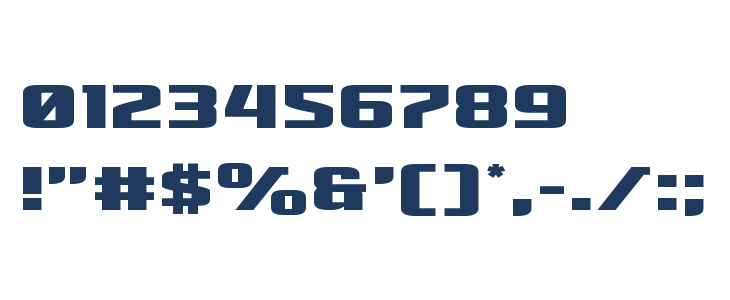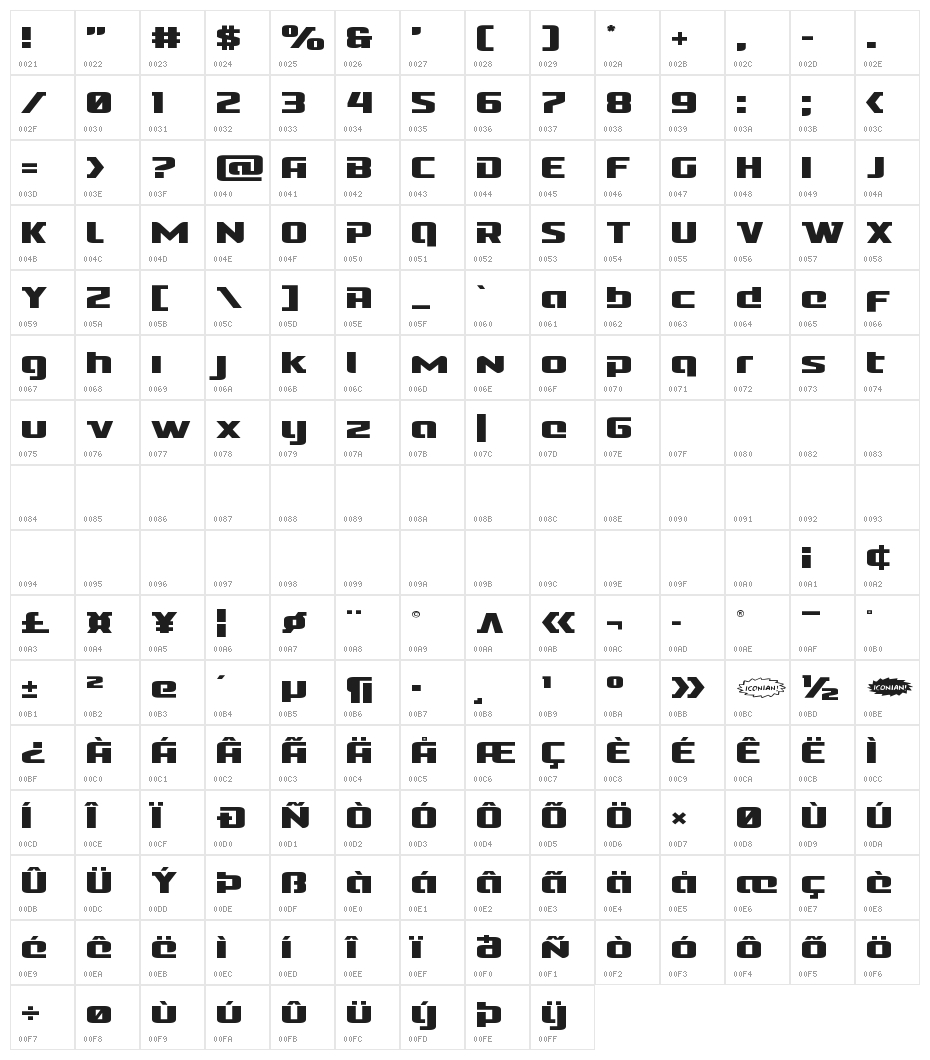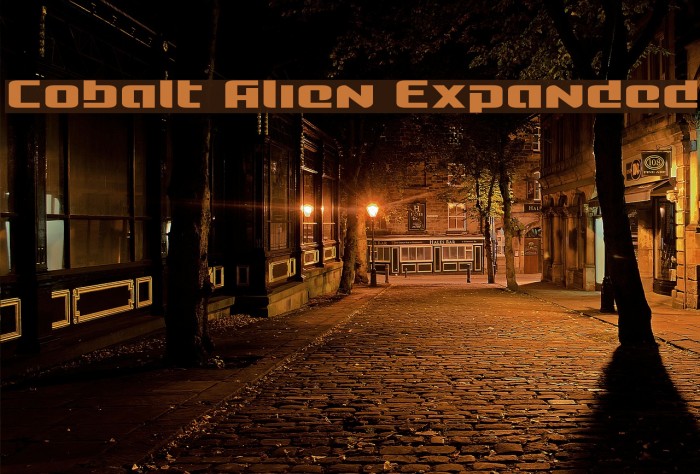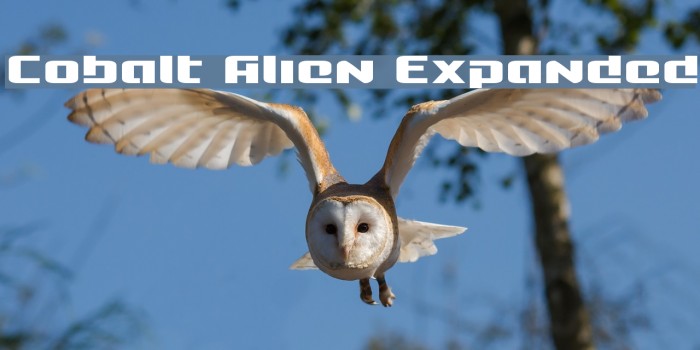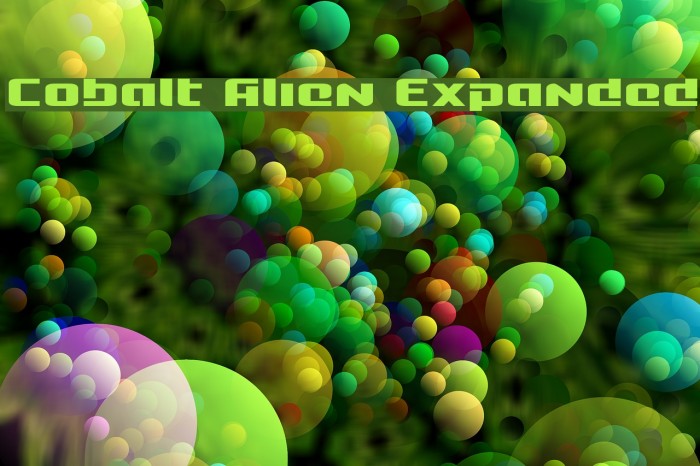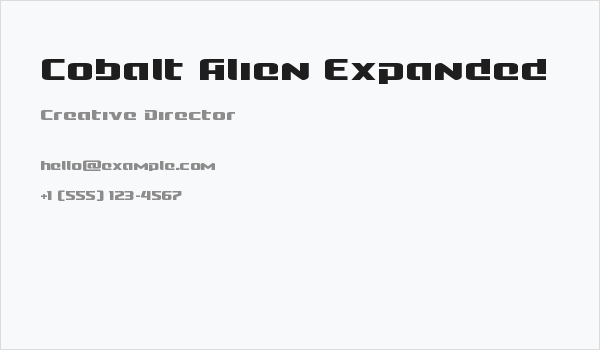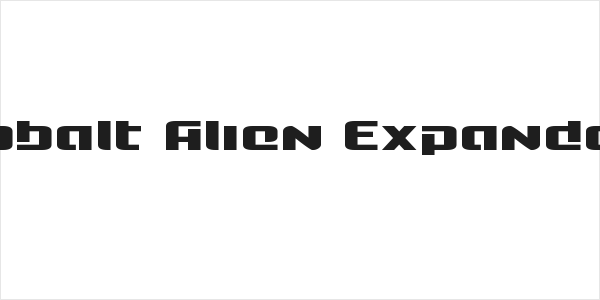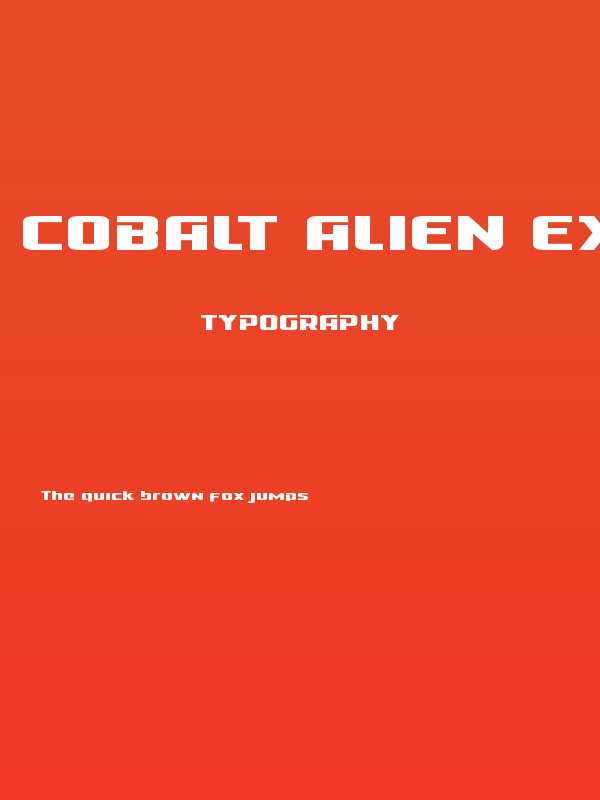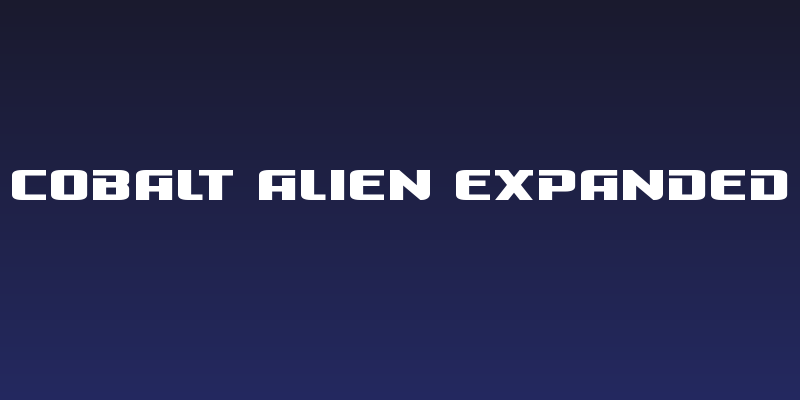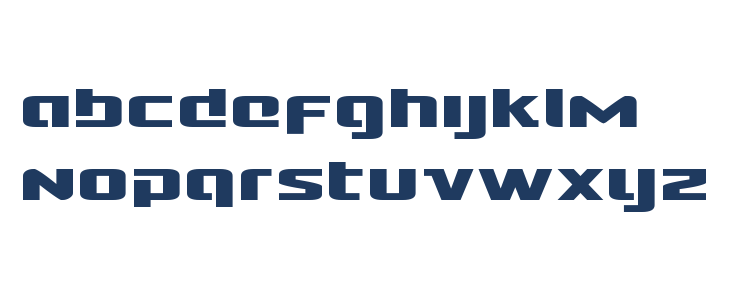
Cobalt Alien Expanded Font
Cobalt Alien Expanded Description
This font features a futuristic and bold design, characterized by its geometric and angular letterforms. The uppercase and lowercase letters maintain a consistent style, with sharp edges and a strong presence. The numbers and special characters follow the same design principles, ensuring uniformity across all glyphs. Its expanded width gives it a commanding appearance, making it ideal for attention-grabbing headlines or titles. The font's unique style is reminiscent of science fiction themes, with a modern twist that sets it apart from traditional typefaces.